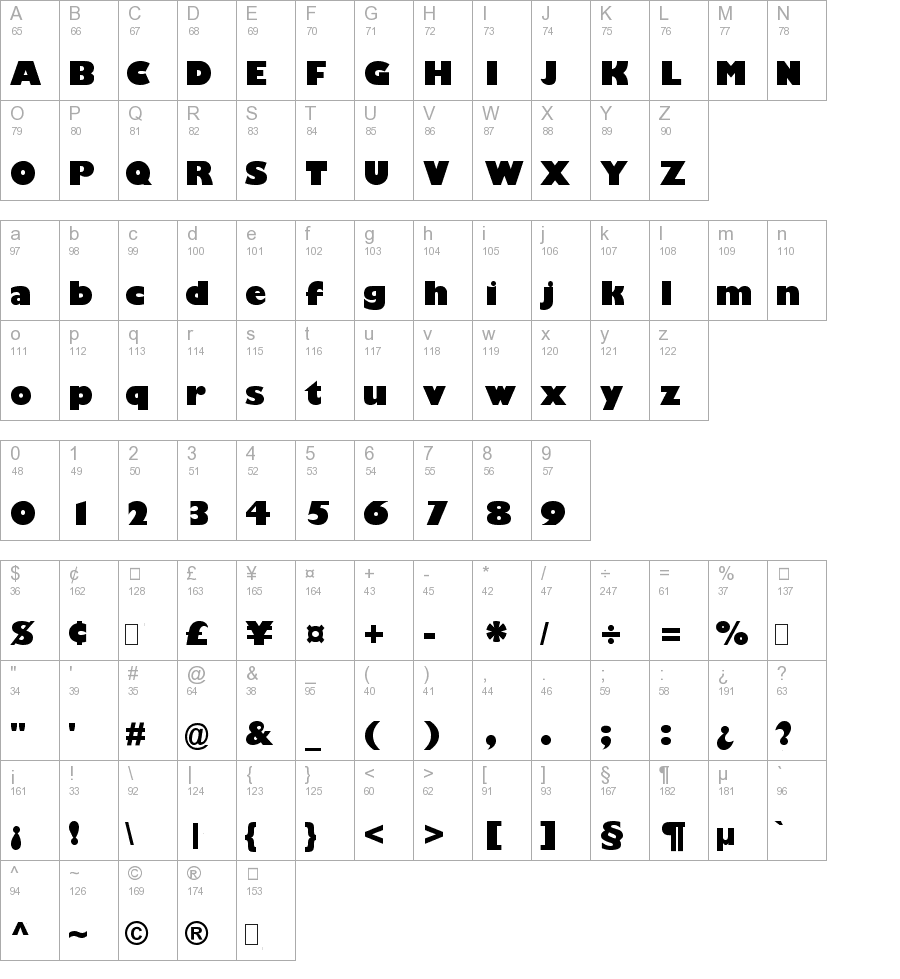
Font Gill Sans Bold - Gill sans mt bold proves to be an ideal font choice for creative designs, with its bold subfamily. Experience the timeless elegance of free bold gill sans fonts, perfect for a sleek, modern design appeal. Crafted by eric gill, this font is.
Crafted by eric gill, this font is. Gill sans mt bold proves to be an ideal font choice for creative designs, with its bold subfamily. Experience the timeless elegance of free bold gill sans fonts, perfect for a sleek, modern design appeal.
Experience the timeless elegance of free bold gill sans fonts, perfect for a sleek, modern design appeal. Gill sans mt bold proves to be an ideal font choice for creative designs, with its bold subfamily. Crafted by eric gill, this font is.
Crafted by eric gill, this font is. Gill sans mt bold proves to be an ideal font choice for creative designs, with its bold subfamily. Experience the timeless elegance of free bold gill sans fonts, perfect for a sleek, modern design appeal.
Experience the timeless elegance of free bold gill sans fonts, perfect for a sleek, modern design appeal. Crafted by eric gill, this font is. Gill sans mt bold proves to be an ideal font choice for creative designs, with its bold subfamily.
Crafted by eric gill, this font is. Experience the timeless elegance of free bold gill sans fonts, perfect for a sleek, modern design appeal. Gill sans mt bold proves to be an ideal font choice for creative designs, with its bold subfamily.
Gill sans mt bold proves to be an ideal font choice for creative designs, with its bold subfamily. Experience the timeless elegance of free bold gill sans fonts, perfect for a sleek, modern design appeal. Crafted by eric gill, this font is.
Experience the timeless elegance of free bold gill sans fonts, perfect for a sleek, modern design appeal. Gill sans mt bold proves to be an ideal font choice for creative designs, with its bold subfamily. Crafted by eric gill, this font is.
Experience the timeless elegance of free bold gill sans fonts, perfect for a sleek, modern design appeal. Crafted by eric gill, this font is. Gill sans mt bold proves to be an ideal font choice for creative designs, with its bold subfamily.
Crafted by eric gill, this font is. Experience the timeless elegance of free bold gill sans fonts, perfect for a sleek, modern design appeal. Gill sans mt bold proves to be an ideal font choice for creative designs, with its bold subfamily.
Crafted By Eric Gill, This Font Is.
Experience the timeless elegance of free bold gill sans fonts, perfect for a sleek, modern design appeal. Gill sans mt bold proves to be an ideal font choice for creative designs, with its bold subfamily.